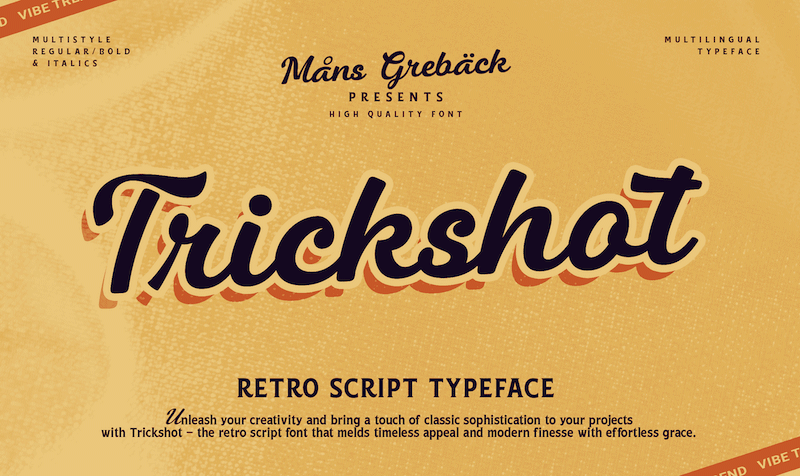
NOTE: This font is for PERSONAL USE ONLY! To purchase a commercial license, visit: http://mn.sg/trickshot Trickshot is a handmade script font that evokes a sense of rustic charm and enthusiasm. Its expressive style makes it a good choice for designs that require a strong visual impact, such as a sports team logo. For questions, please visit www.mansgreback.com/faq |